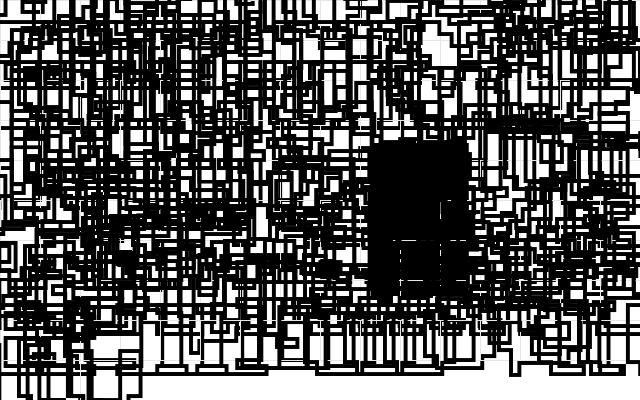
FixCystNeon Regular
Regular · bobistheowl for Metaphase Brothel Graphix,  ·
Design Context for FixCystNeon Typeface
FixCystNeon has a distinctly futuristic character, with geometric precision and clean angles that feel at home in technology, gaming, and sci-fi contexts.